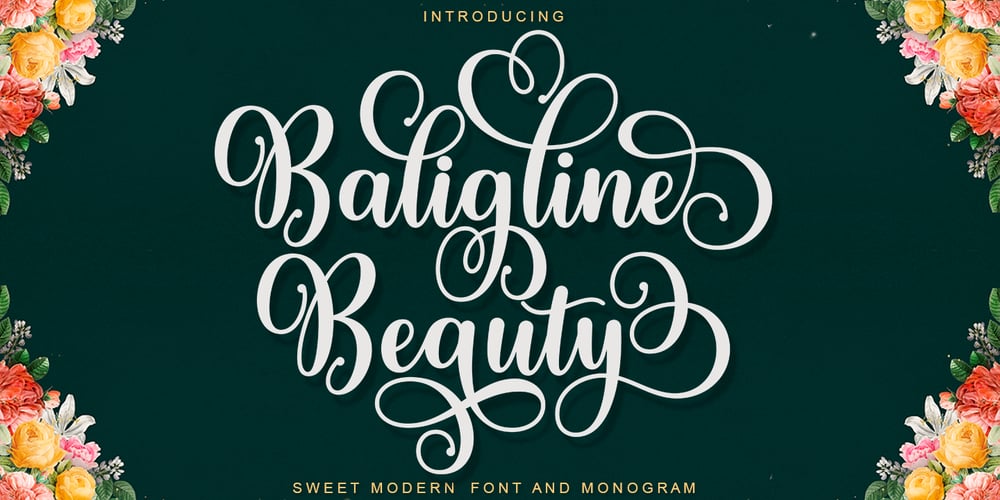
Baligline Beauty
Baligline Beauty font
Baligline Beauty Font Family was designed by M Irvan Syouqi S and published by IRF Lab Studio. Baligline Beauty contains 1 styles and family package options. Baligline Beauty Script is a beautiful modern calligraphy typeface, I hope you will be interested in this font, if you want to use it for your work.This font can be used easily and simply because there are many features in it. contains a complete set of lowercase and uppercase letters, assorted punctuation, numbers, and multilingual support. Baligline Beauty is very suitable for market designs being developed today, this font has a stylish, trendy, natural and soft font, with this font you can take advantage of opportunities every moment is a great way to highlight the celebration of the best of the party, because this font will be an advocate for the purposes such as wedding invitations, branding, parties, graduations, birthdays, gatherings, etc.Thank you,